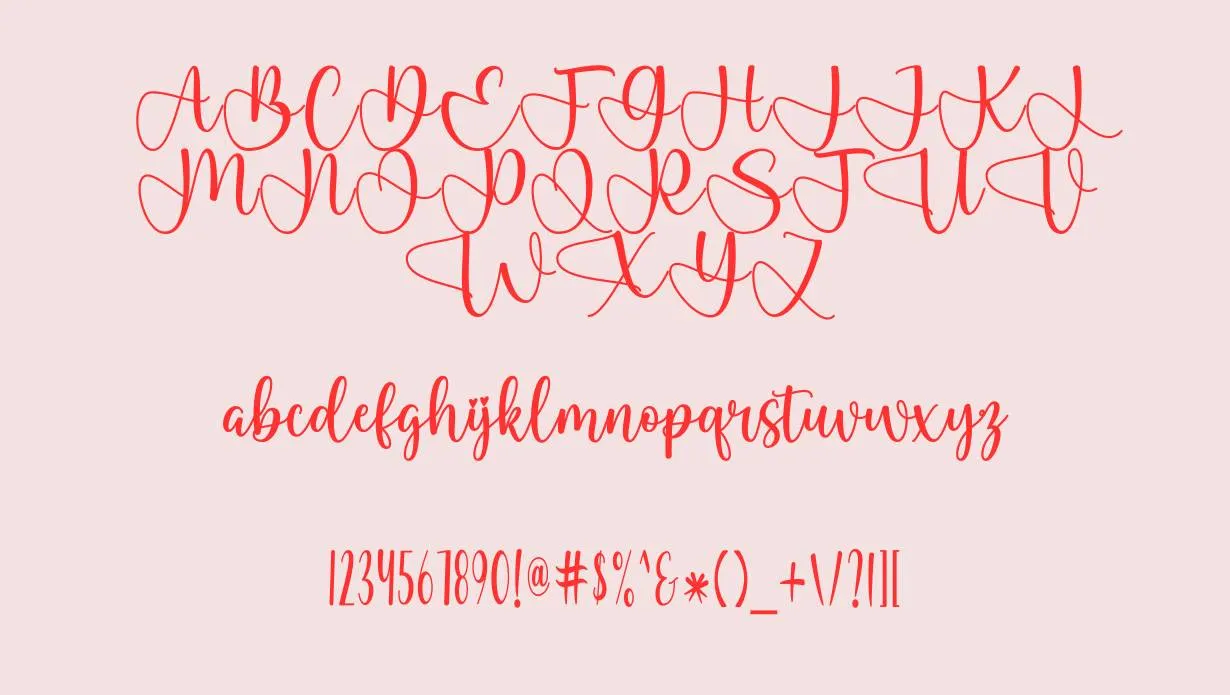
The Alivia font is reminiscent of a graceful letter dance. Its elegant and flowing design makes it perfect for crafting stunning wedding invitations, creating delicate product labels, or adding a touch of sophistication to your branding.
This font has a moderate weight and standard width, ensuring your words look graceful and charming. Picture using the Alivia font for a romantic poetry book cover, turning your text into a poetic expression.